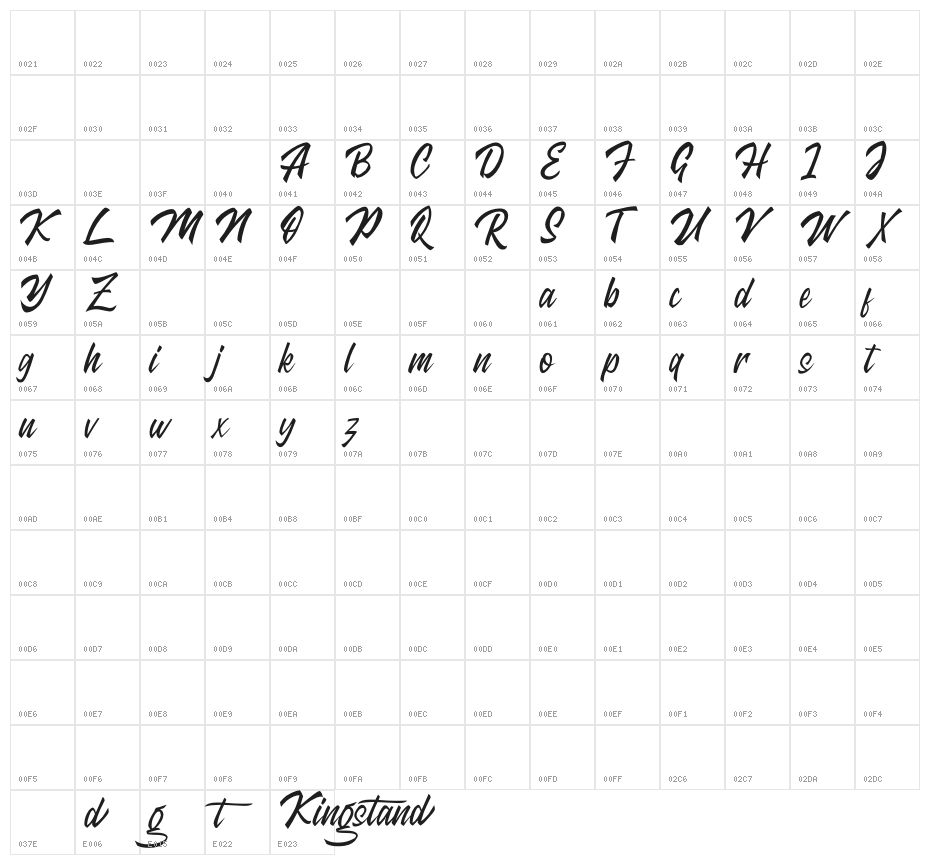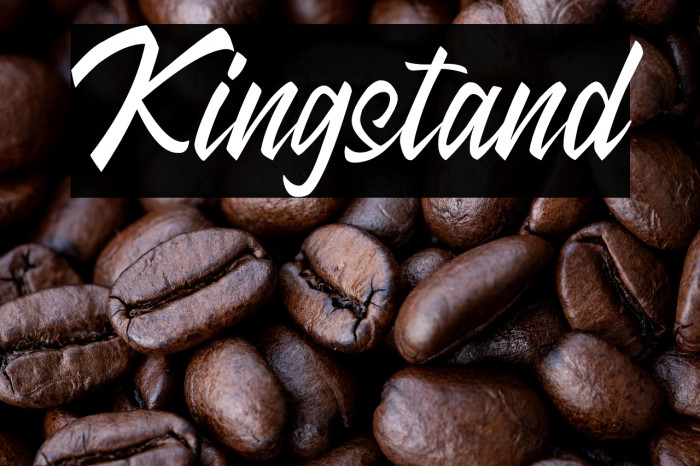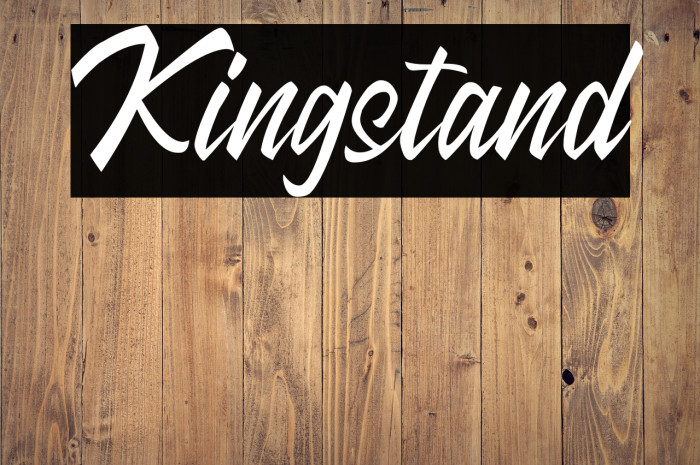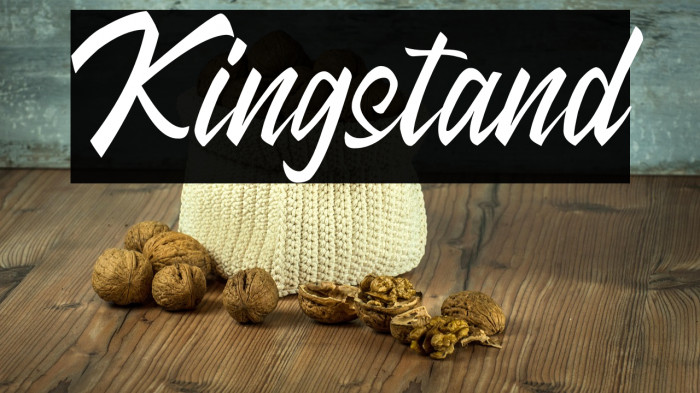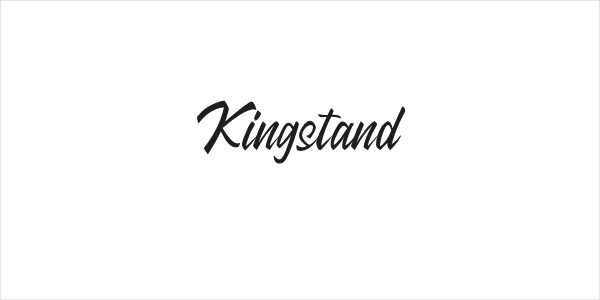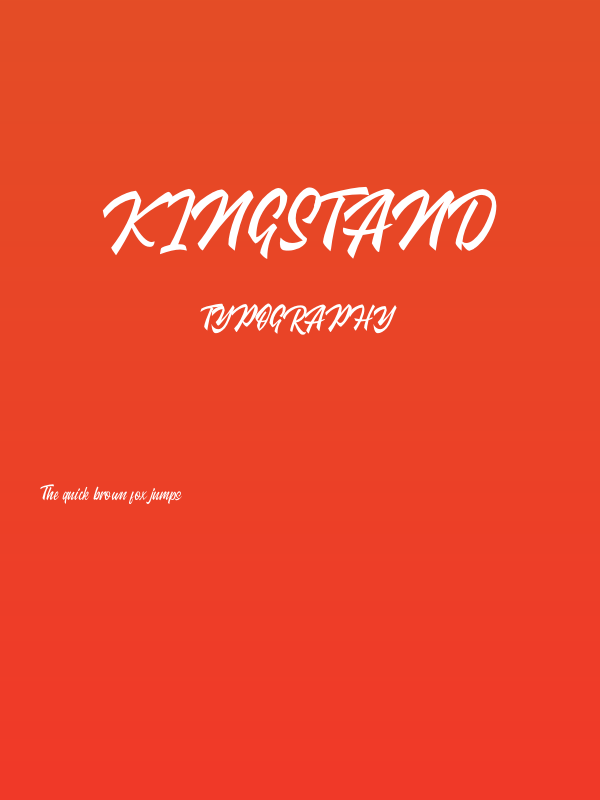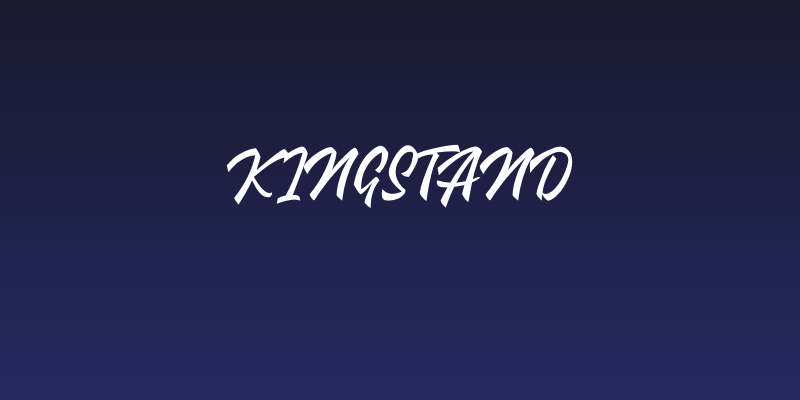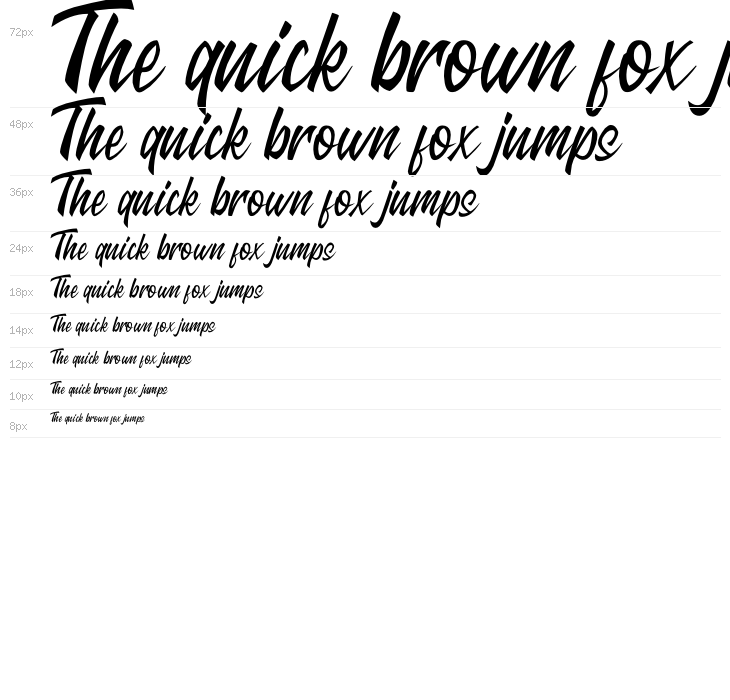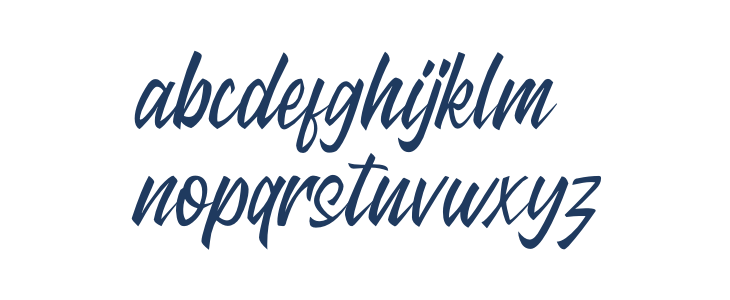
Kingstand Font
Kingstand Description
This font exhibits a bold and dynamic script style, characterized by its fluid and connected letterforms. The strokes are thick and expressive, with a noticeable slant that adds a sense of motion and elegance. The uppercase letters are particularly striking, with sweeping curves and flourishes that give them a dramatic flair. The lowercase letters maintain a consistent flow, enhancing readability while retaining the font's artistic appeal. The overall design is modern and stylish, making it suitable for a variety of creative applications.